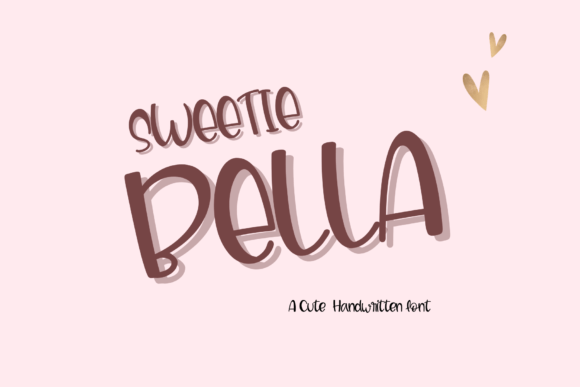
Welcome to the world of Sweetie Bella Font, a captivating handwritten masterpiece crafted by the skilled hands of nstudio design. This charming script font exudes elegance and class, adding a touch of sophistication to your creative projects.
With its playful and inviting curves, Sweetie Bella Font is a true delight for the eyes. Its graceful lines dance across the page, evoking a sense of joy and wonder. Whether you're designing a modern logo, creating a heartfelt wedding invitation, or crafting social media posts that capture attention, Sweetie Bella Font is the perfect choice to make your words come alive.
Step into the realm of endless possibilities with Sweetie Bella Font. Its versatility knows no bounds, allowing you to write and design across a myriad of projects. Create logos that exude professionalism and creativity, wedding designs that radiate romance and elegance, and social media posts that spark engagement and conversation. The options are limitless, bound only by your imagination.
Unleash the power of Sweetie Bella Font in your advertising campaigns and product packaging. Its charming personality will draw customers in, leaving a lasting impression that builds brand loyalty. Design product labels that stand out on shelves, capturing the attention of shoppers and enticing them to make a purchase. With Sweetie Bella Font, your products will shine brighter than ever before.
Whether you're a seasoned designer or just starting your creative journey, Sweetie Bella Font is the perfect companion for your projects. Its user-friendly nature makes it accessible to everyone, regardless of skill level. Embrace the creative freedom that Sweetie Bella Font offers and watch your ideas flourish into stunning realities.
Embrace the allure of Sweetie Bella Font and embark on a creative adventure like no other. Let its captivating charm enhance your projects, leaving a lasting impression on all who encounter it. Experience the magic of Sweetie Bella Font today and transform your creative visions into extraordinary realities.